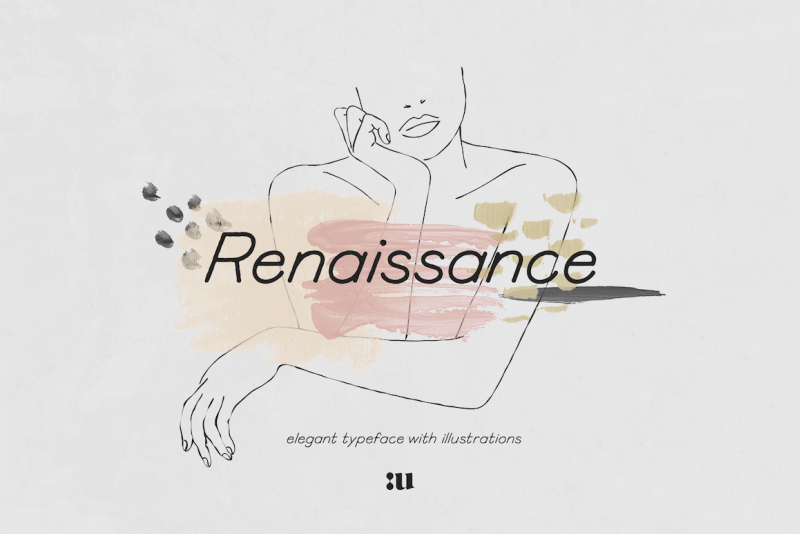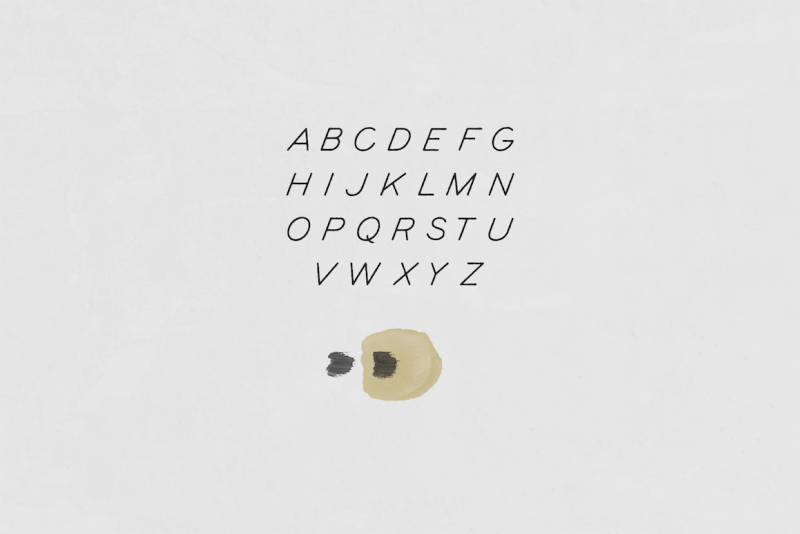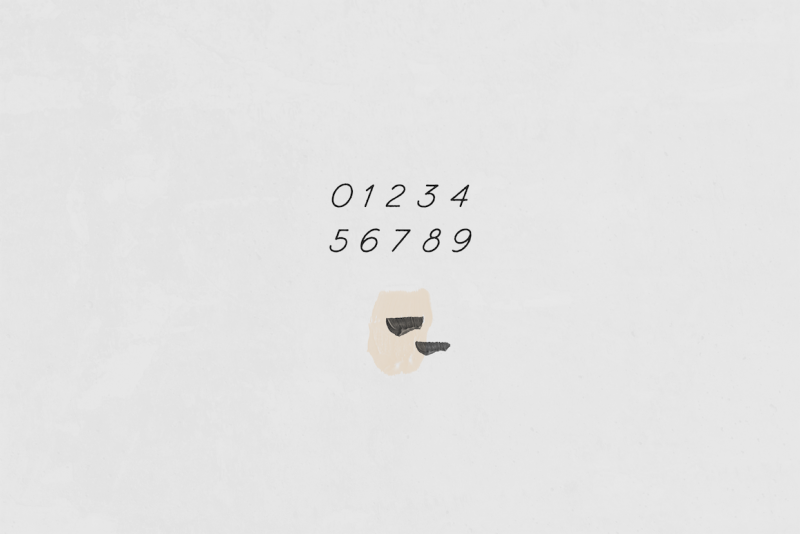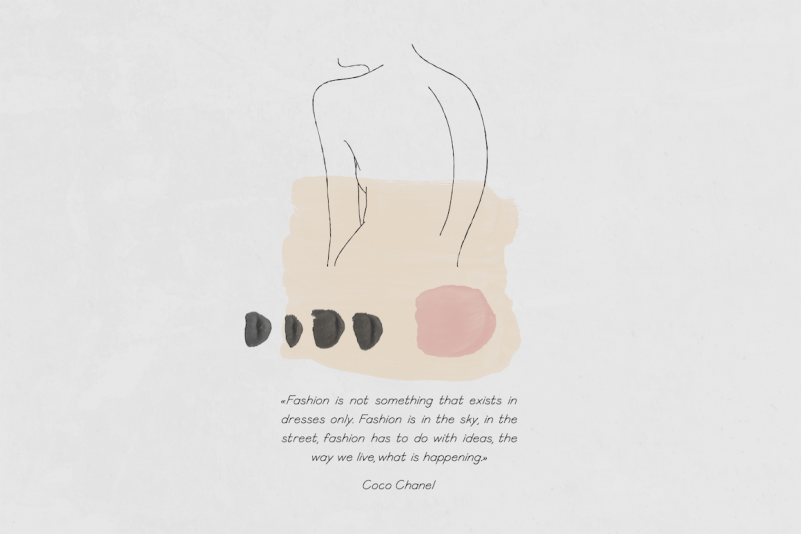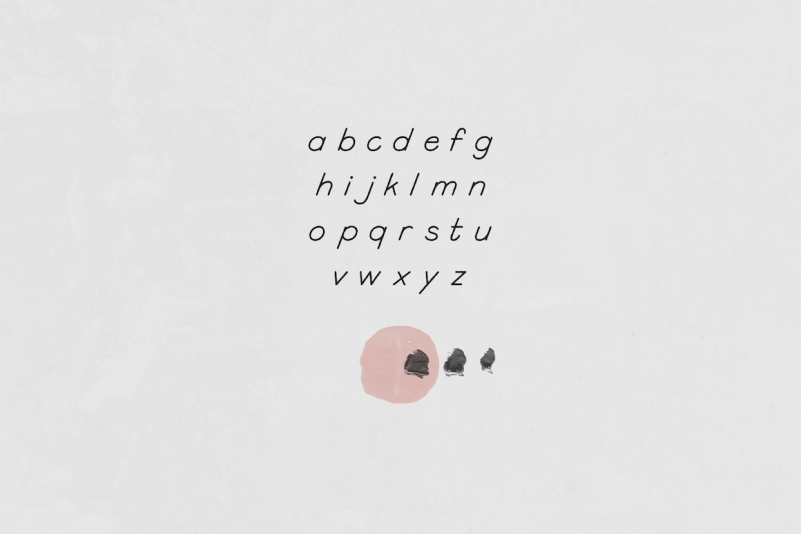
Renaissance Font
Introducing “Renaissance Font – Freebie” – a minimalistic hand-lettered all-caps sans combined with a free collection of elegant line drawings.
This kit is meant to be versatile with an overall result characterized by a modern look. The sophisticated undulating lines with the clarity of minimalist precision function beautifully in any contemporary design work, with a nod to elegance and femininity. Perfect for branding, weddings, social media, product design, stationery, quotes and advertising.
Introducing “Renaissance Font – Freebie” – a minimalistic hand-lettered all-caps sans combined with a free collection of elegant line drawings.
This kit is meant to be versatile with an overall result characterized by a modern look. The sophisticated undulating lines with the clarity of minimalist precision function beautifully in any contemporary design work, with a nod to elegance and femininity. Perfect for branding, weddings, social media, product design, stationery, quotes and advertising.
Going more into detail, the commercial version of Renaissance is marked by refined curves and edges and embodies a subtle contemporary lettering style which counts on more than 350 glyphs with the support of several languages based on the Latin alphabet. The bonus collection of thirteen sleek illustrations additionally matches the elegant flair of the typeface and it is useful to create chic designs with female silhouettes or botanical elements.